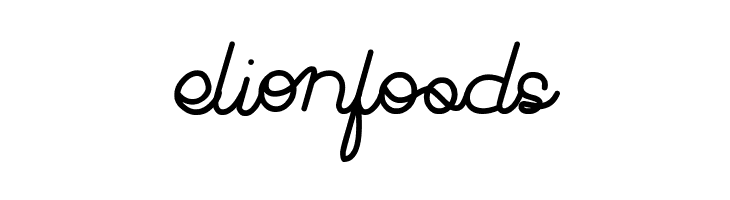
A cursive, flowing script font with elegant, connected letters.
A graceful, handwritten script font with elegant curves and fluid strokes.
An elegant and flowing script font with graceful curves and fluid strokes.